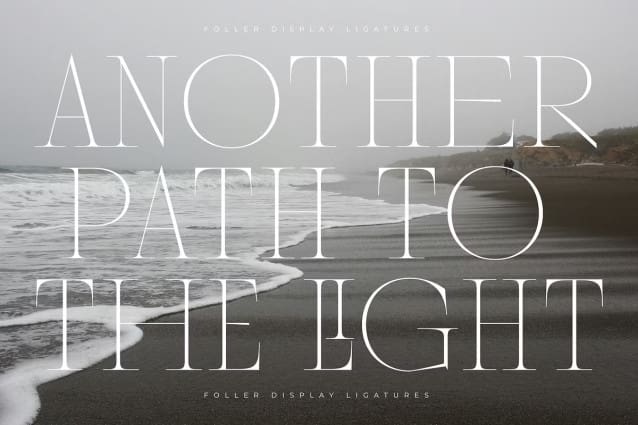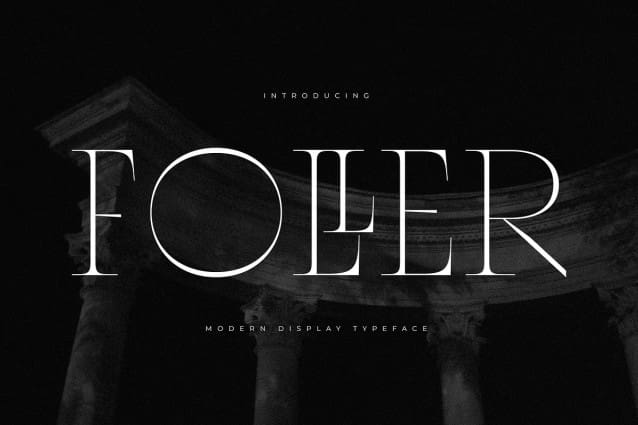
FOLLER DISPLAY TYPEFACE
Foller Display Typeface is a modern display typeface with all capital letters. Some of lowercase letters that have a narrower width than uppercase letters. Ligatures for both uppercase and lowercase letters that are adjusted to the width. It’s suitable for logos, short quotes or other designs with an elegant feel and with a large size.